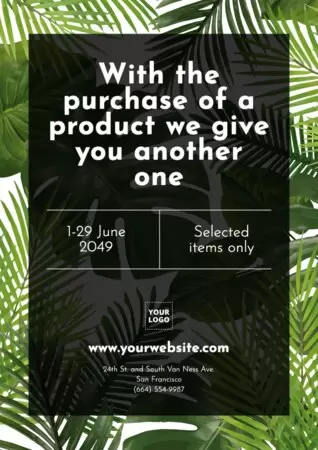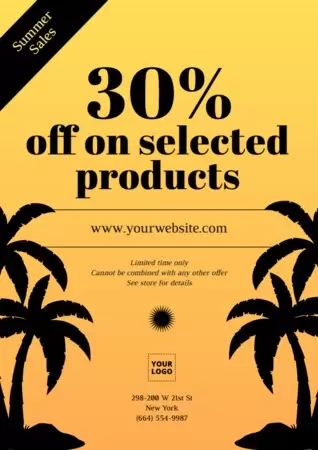
Best typography combinations for your designs
Typography has as much relevance as the image since it often works as the basis of the piece's overall design. The letter can inform us of many things and in fact, brands use typographies according to the values they want to convey to their audience (for example, an elegant clothing brand will never use typographies that are urban or modern). For all these reasons, make a typeface's previous study and avoid doing trial and error.
There are millions of different typefaces, and until now, at Edit.org, we have made a selection of the ones we thought best suited to your designs: clear, eye-catching, and modifiable to your liking.
Recently, we wanted to go a step further. In the same way, you can select templates now you can also select font combinations.
How to add typography font combinations in your designs
- Write the text and try the different combinations we propose, not only of font styles but also with different colors.
Free editable templates with typography color combinations
Remember that if you are editing a template for your company, as always, try to follow the brand's corporate line: same colors, font style, and logo. This way, you will project a more solid and uniform image of your project.